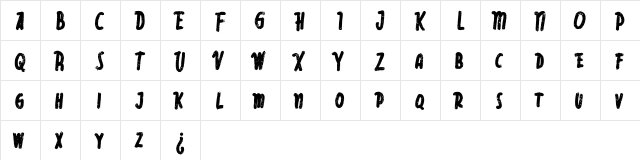
Rebelia FREE Regular
Design Context for Rebelia FREE Typeface
Rebelia FREE is a composed and adaptable typeface that performs quietly and consistently across a wide range of design contexts.